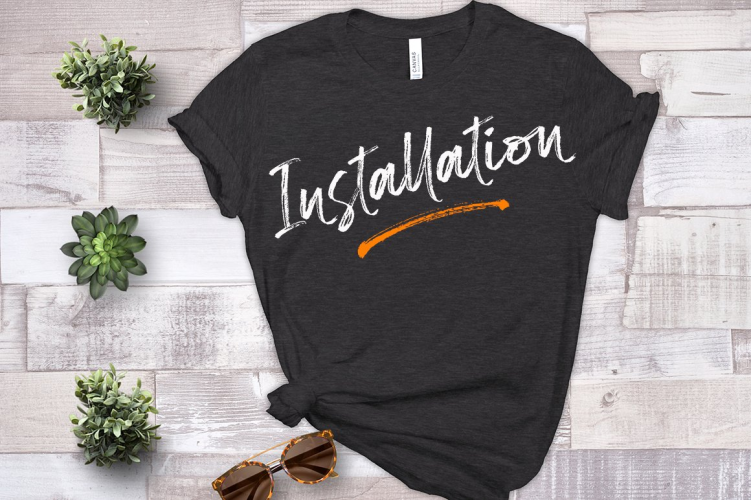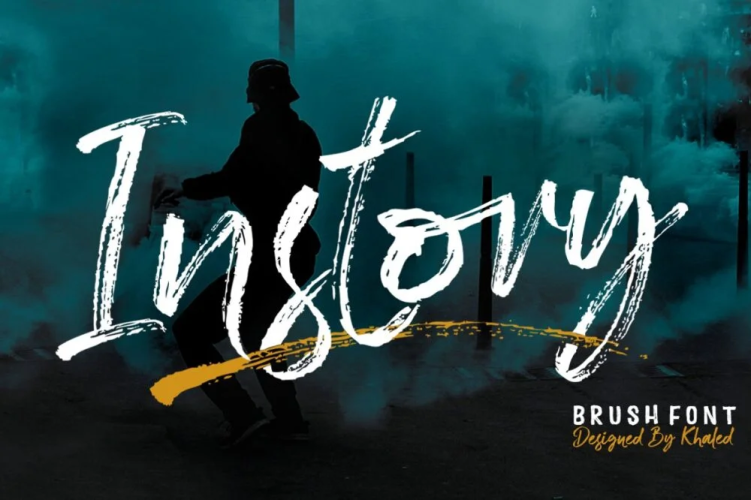
Instory Font
Instory Font is a new modern brush font with an irregular baseline, a contemporary approach to design, handmade natural and suitable for use in title design such as clothing, invitations, book titles, stationery designs, quotes, branding, logos, T-shirts, packaging designs, posters, and more.
Where Instory Font works best
Headlines and titles
Instory Font has enough character to carry a headline on its own; set it large and keep the supporting text plain.
Brand and product names
Short strings are where this typeface is strongest — a name, a label, a cover line.
Social and video graphics
Set Instory Font over a flat colour or a quiet photograph so the letterforms stay the focus.
What kind of work does Instory Font suit?
It sits in the Brush Fonts group and reads as branding, brush, brush fonts, contemporary. That makes it a candidate wherever those qualities help: headings, packaging, social graphics and brand work. Set it at the size you plan to use before deciding.